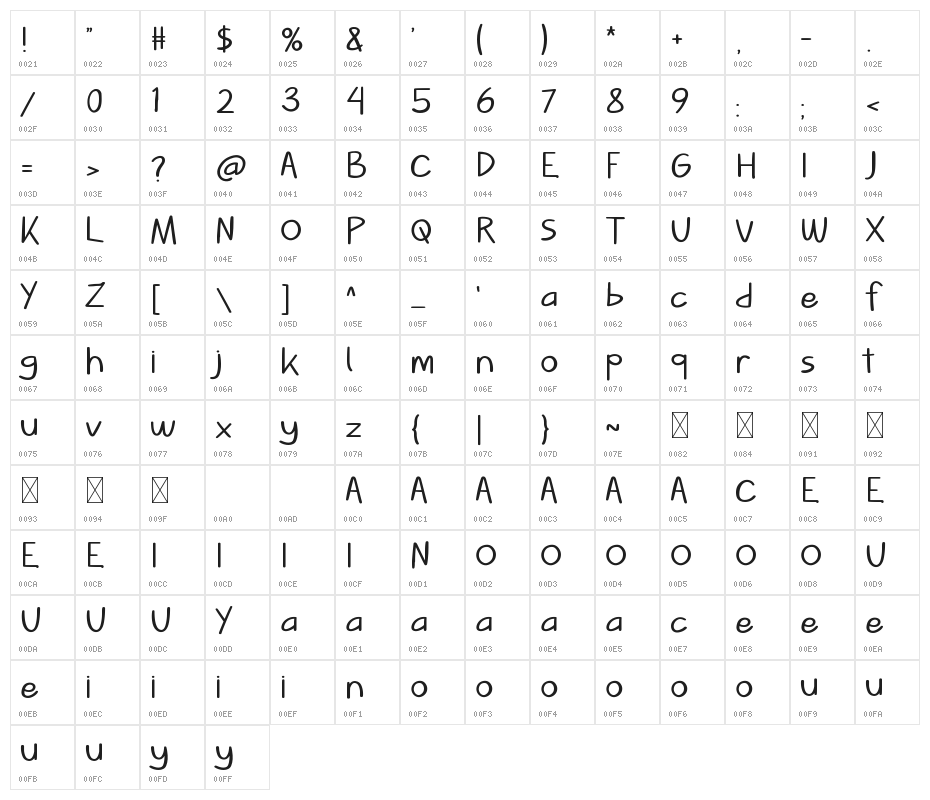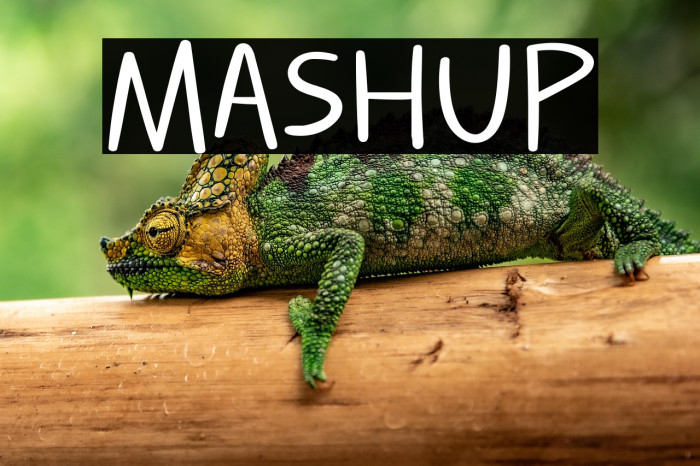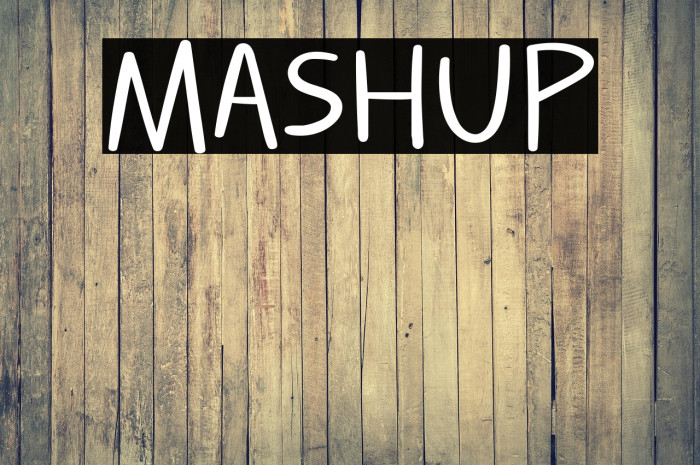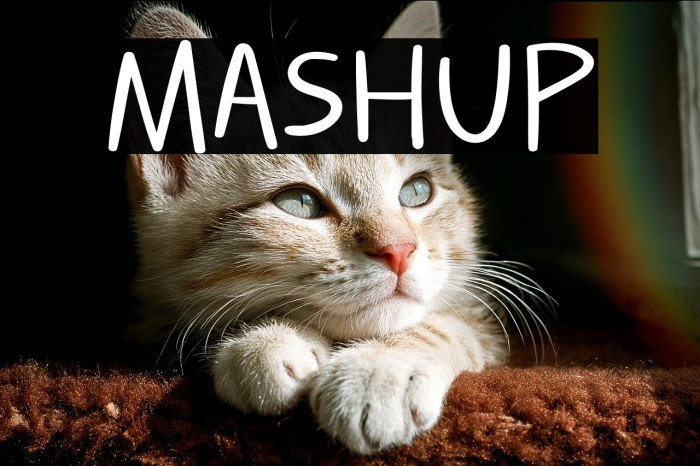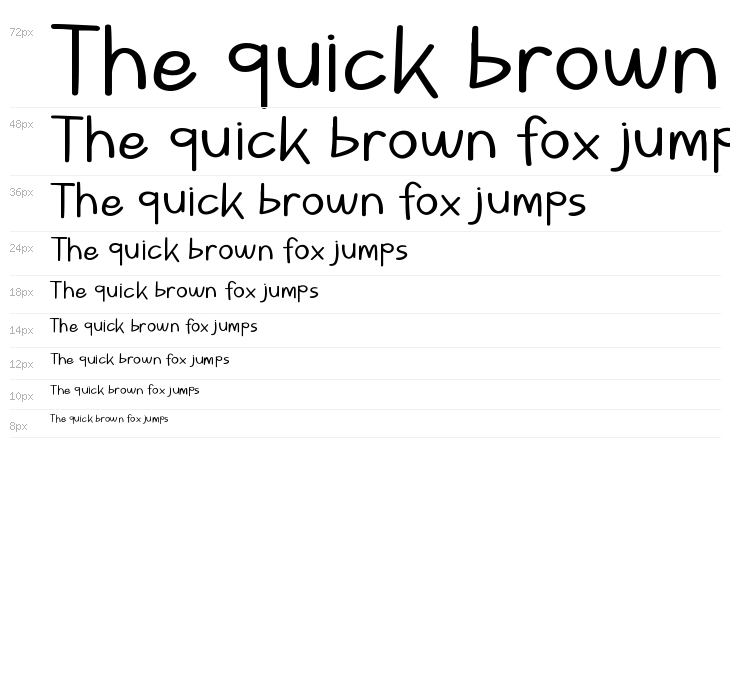
MASHUP Font
This playful and informal font features rounded, hand-drawn characters that convey a sense of friendliness and approachability. The letters are slightly irregular, adding to the casual and whimsical feel. The strokes are consistent in thickness, providing a uniform appearance across all characters. This font includes both uppercase and lowercase letters, numerals, and a variety of special characters, making it versatile for different uses. Its design is reminiscent of handwriting, which can add a personal touch to any project.
| Overall Style | Casual |
| Use Case | Headlines, Logos, Informal text |
| Proposed Projects | Ideal for children's books, greeting cards, playful branding, and casual invitations. |